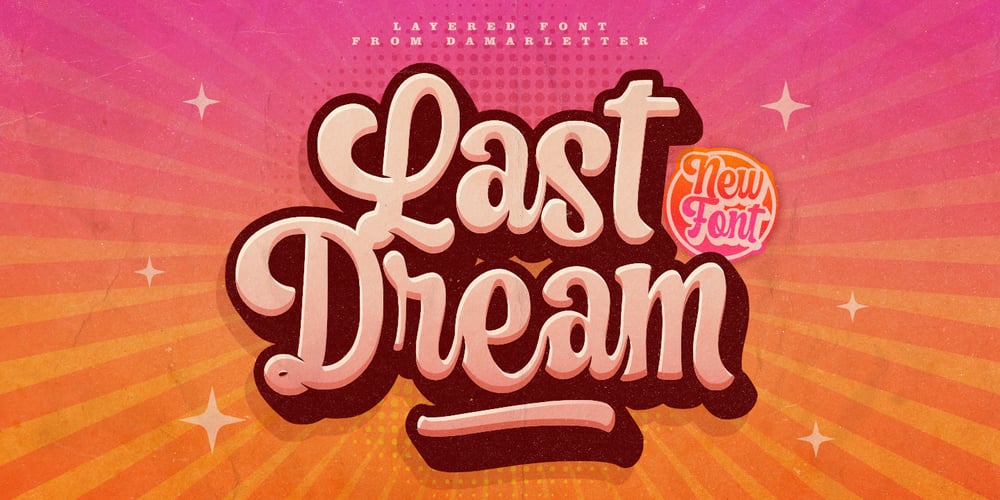
Last Dream
Last Dream font
Last Dream Font Family was designed by Ardian Nuvianto and published by Ardian Nuvianto. Last Dream contains 2 styles and family package options. Last Dream is consisting of a stylish layered font, come with regular and extrude.This font was created with contextual alternates opentype features to create slice effect.Last Dream is perfect for branding projects, logo, social media posts, advertisements, product packaging, product designs, label, stationery and anything that you want.Here is that you get:Last Dream regular and extrudeWorks on PC & MacSimple installationsSupports multilingualAccessible in the Adobe Illustrator, Adobe Photoshop, Adobe InDesign, even work on Microsoft Word.PUA Encoded Characters – Fully accessible without additional design software.